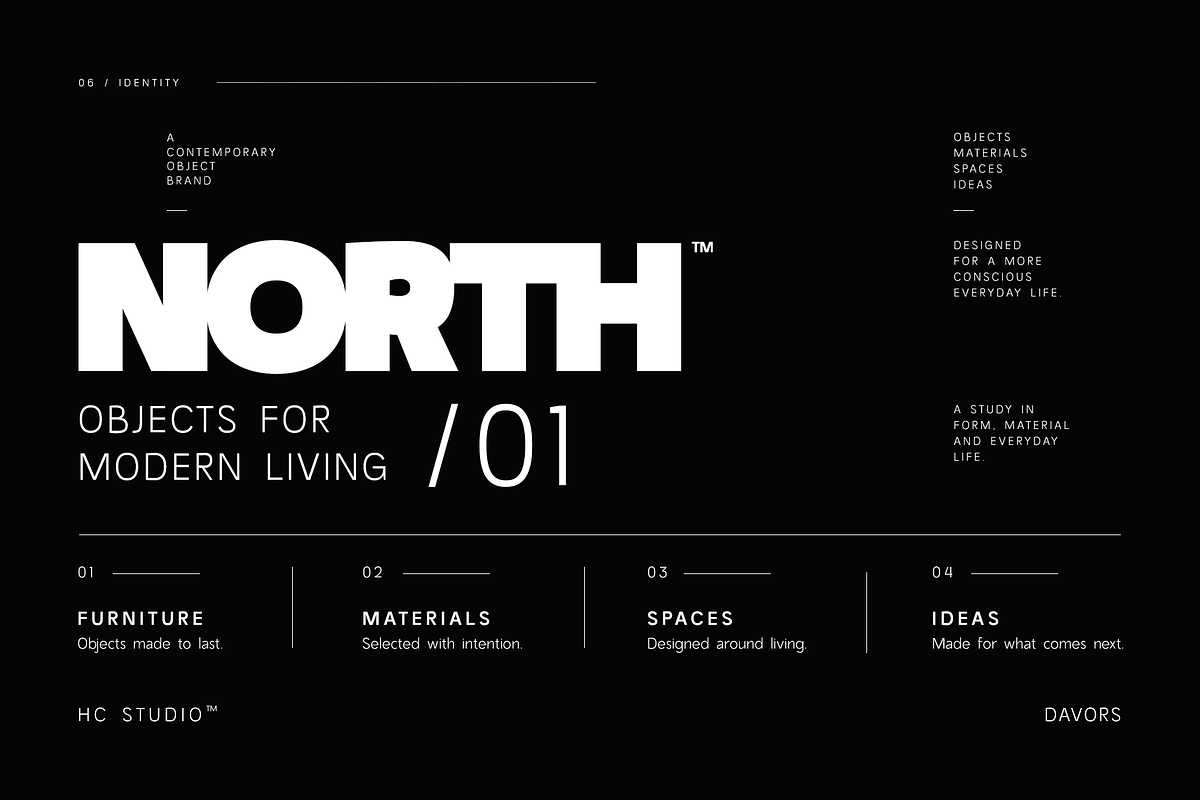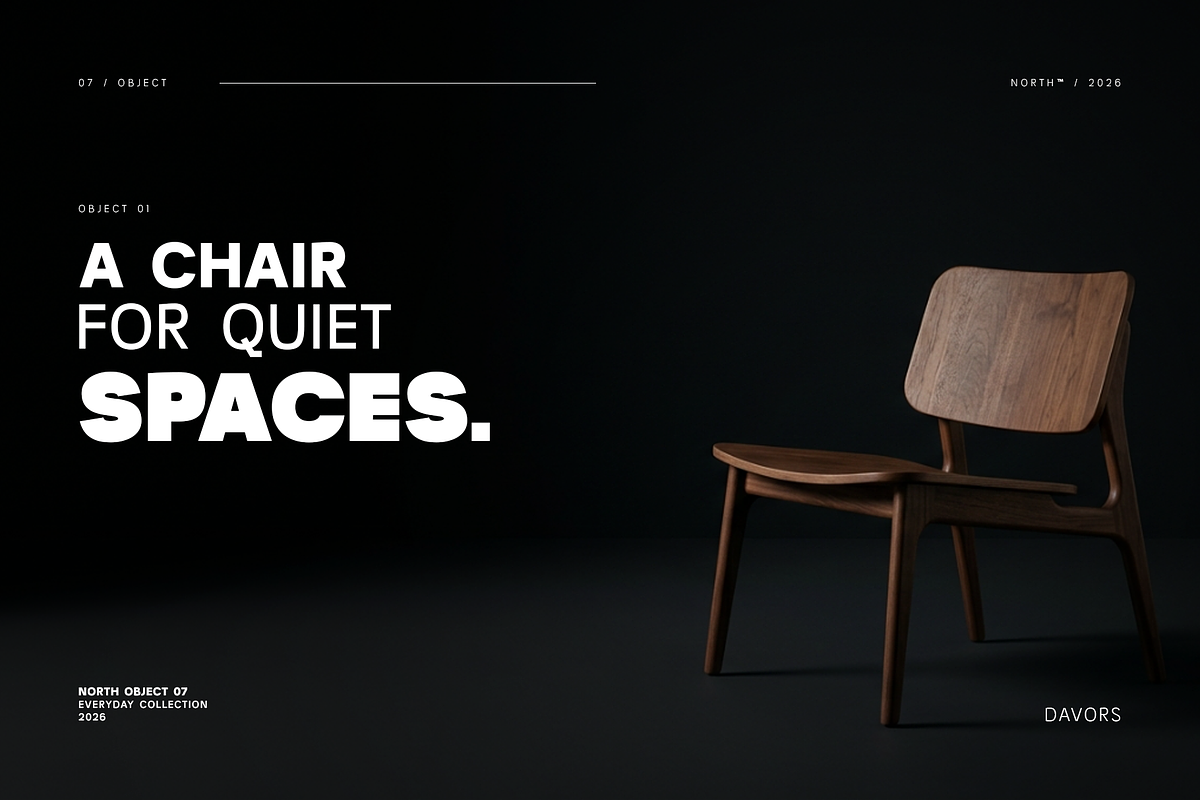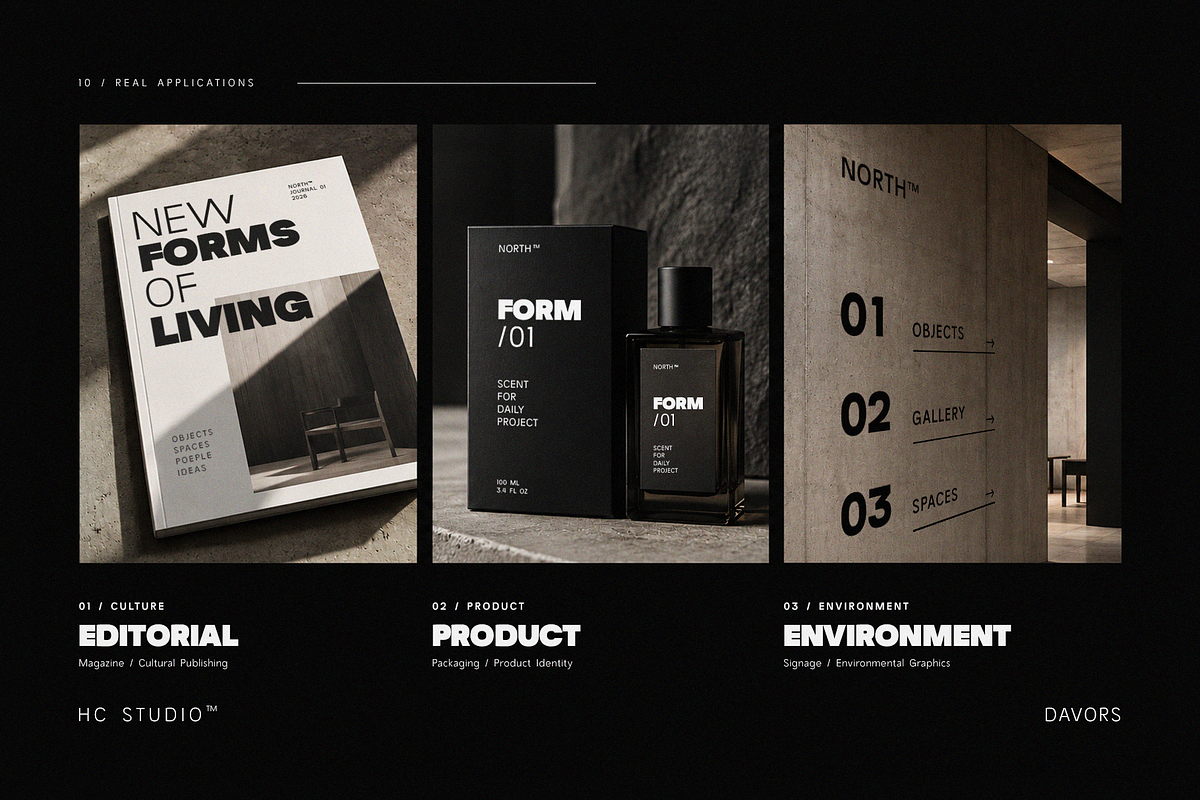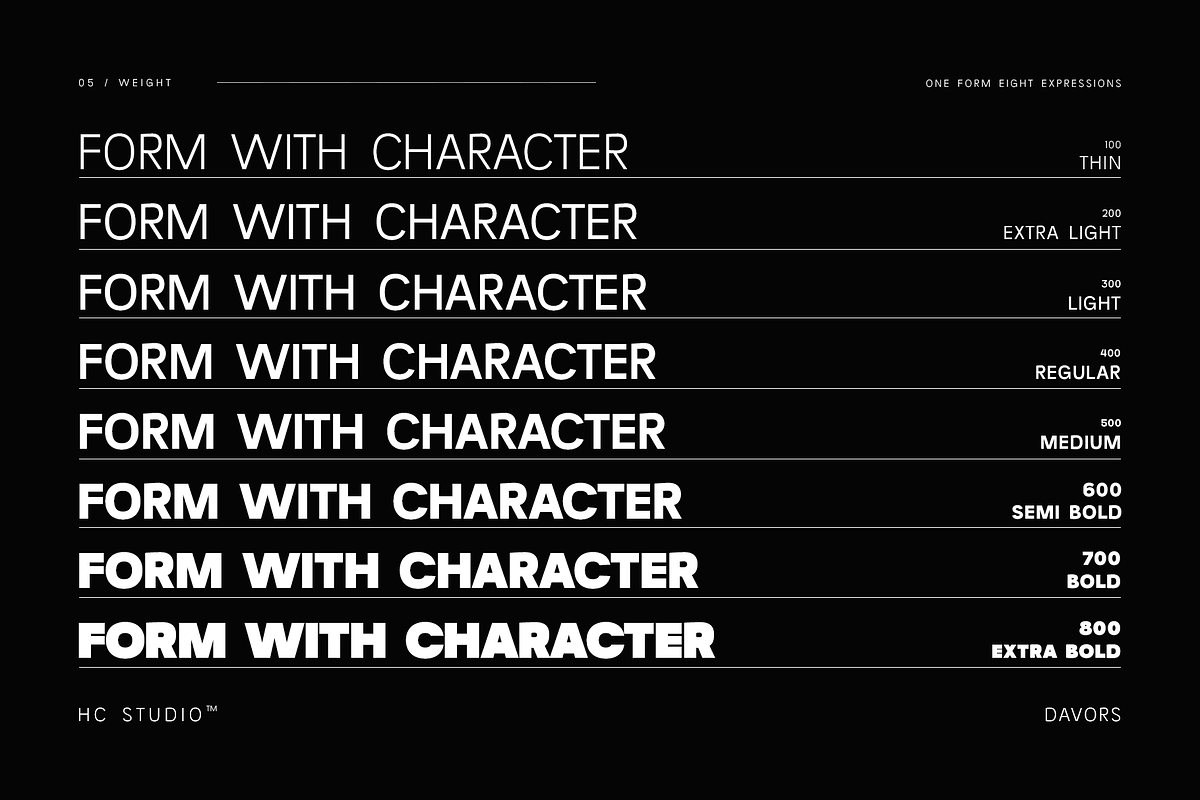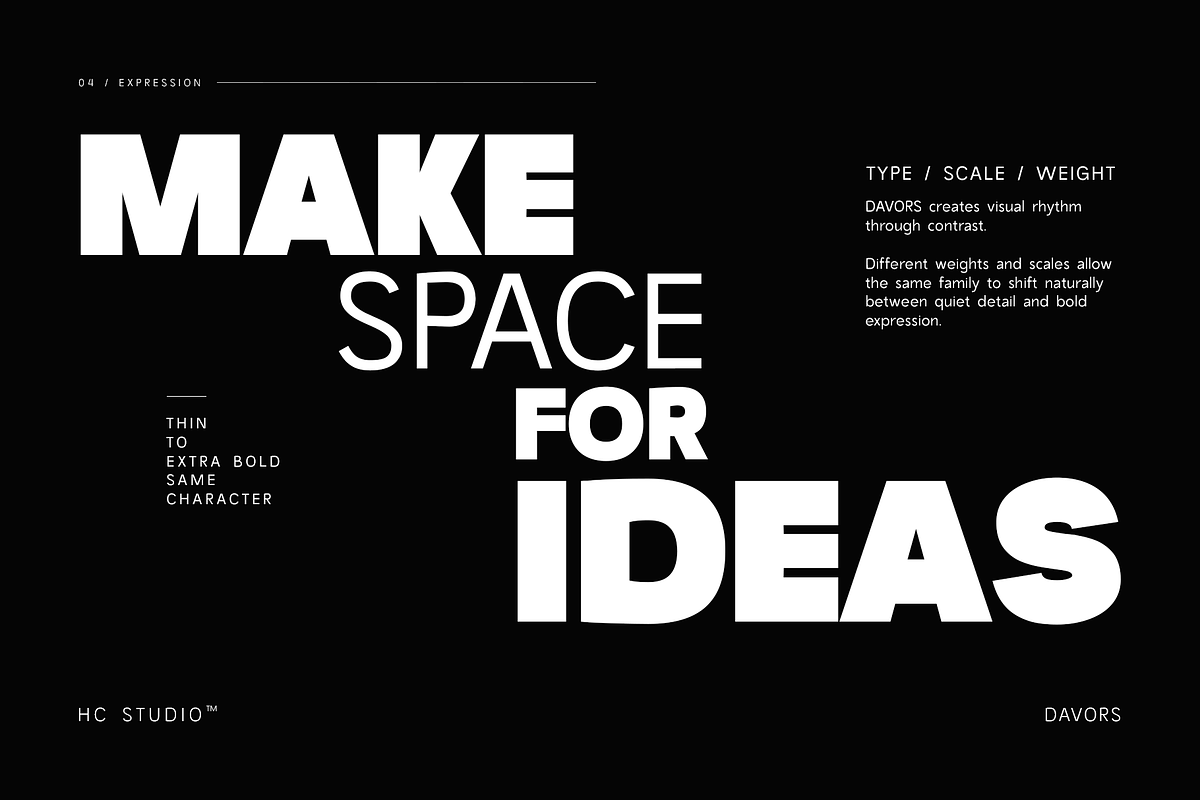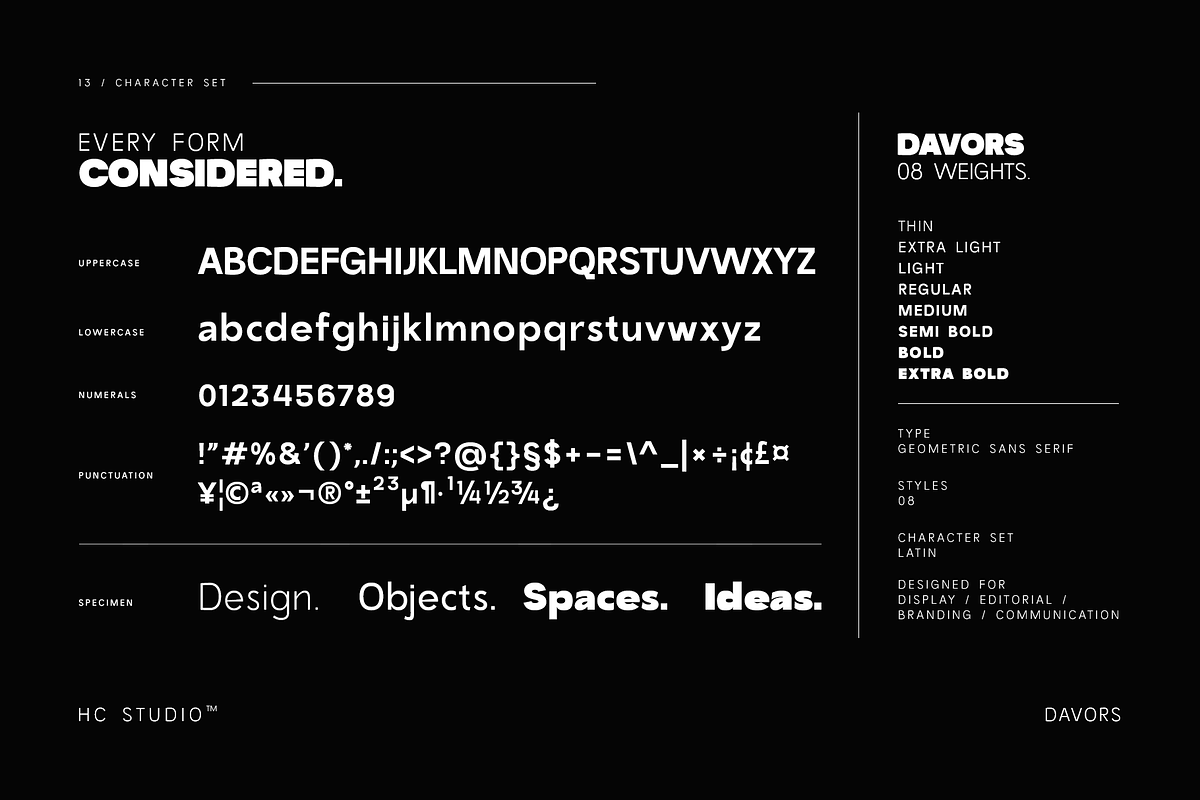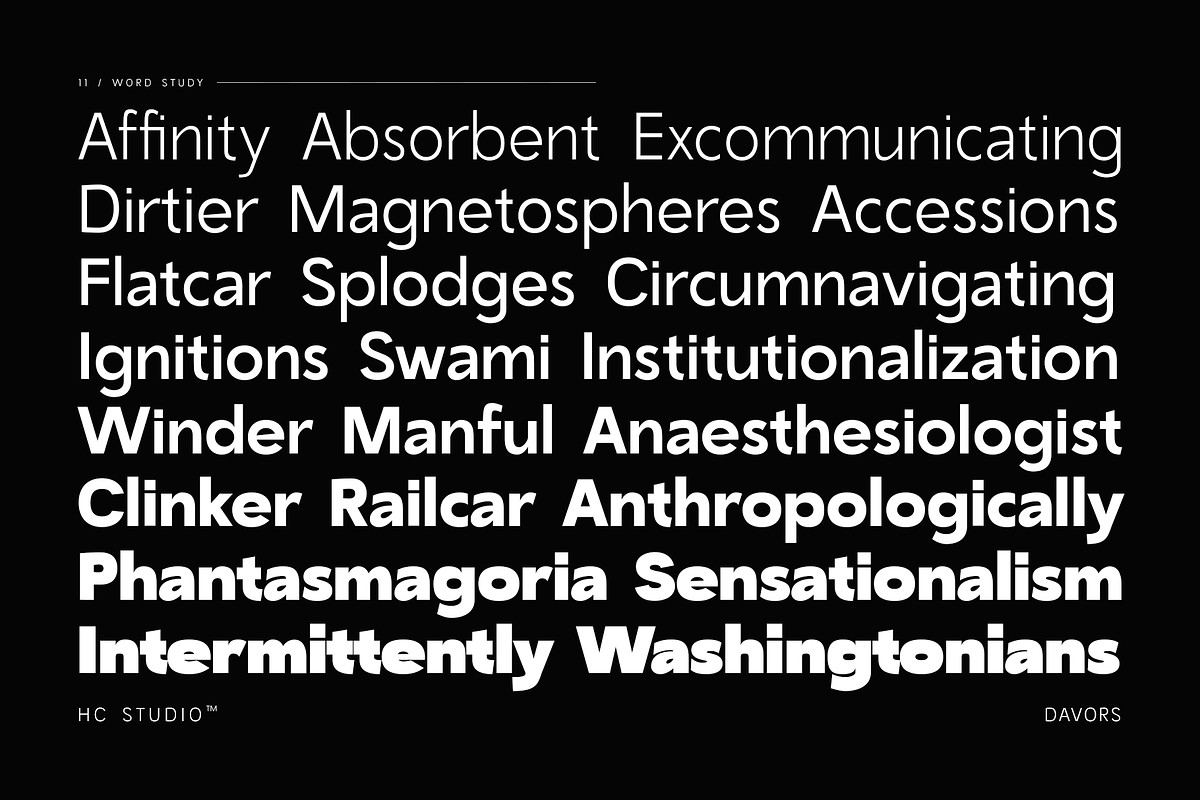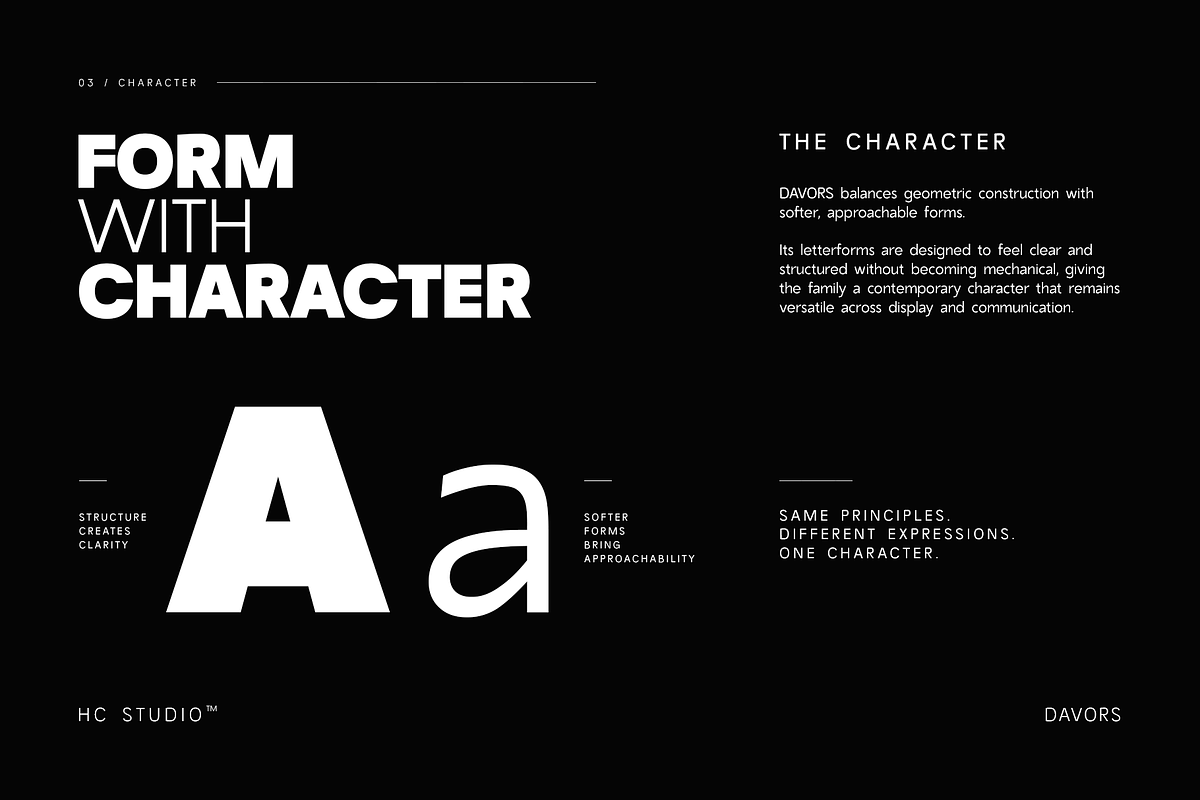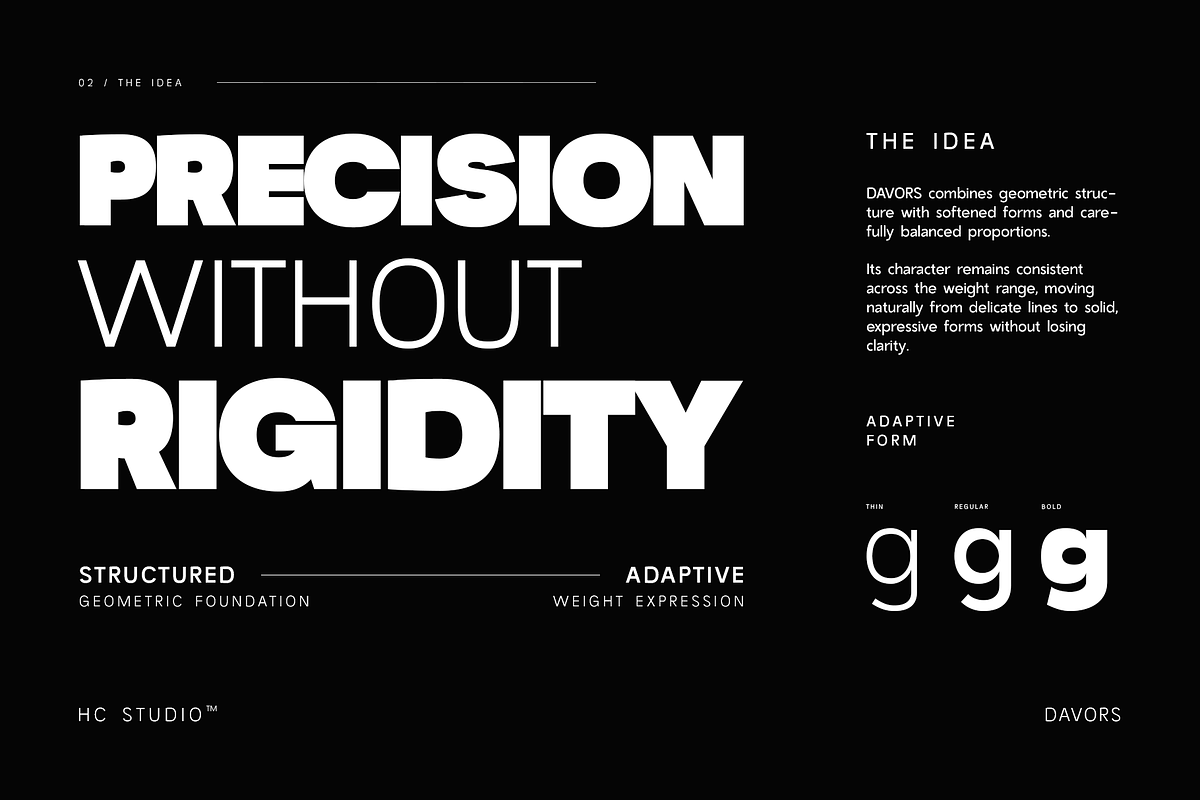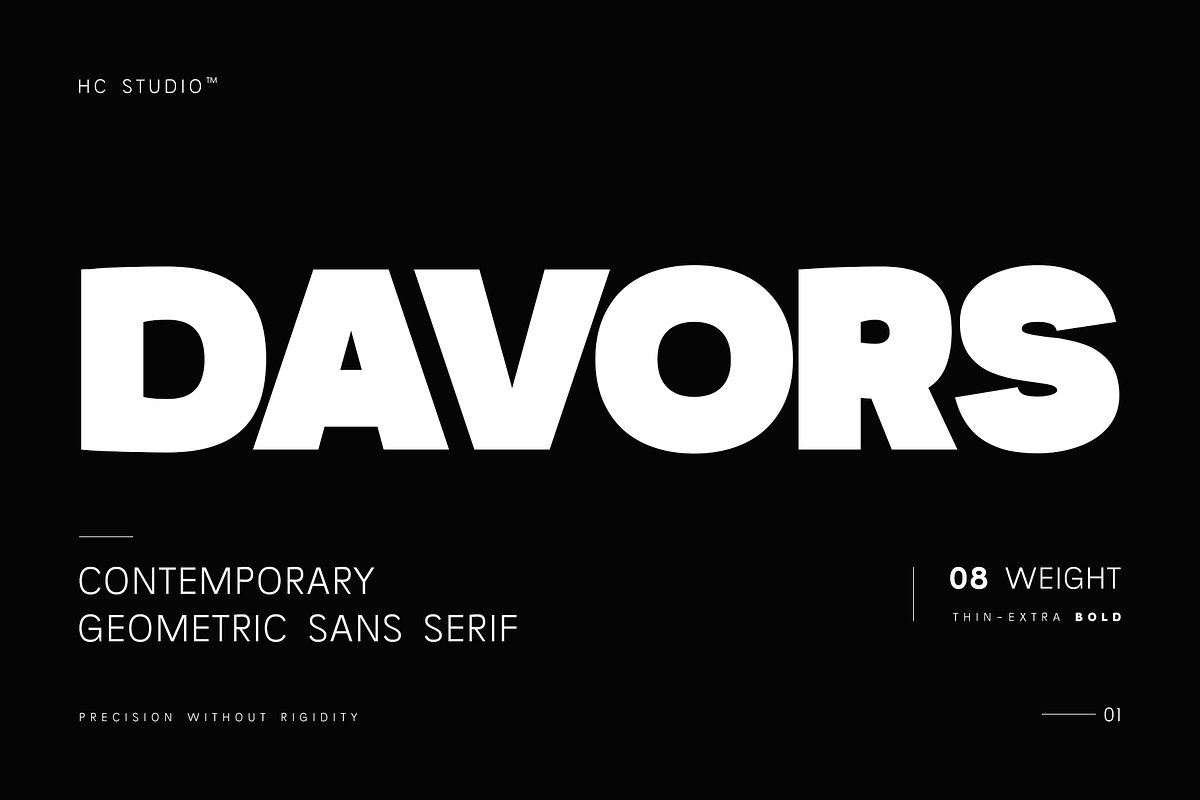
Davors - Geometric Sans Serif
DAVORS is a modern geometric sans serif font family with 8 weights, designed for branding, logo design, editorial design, packaging, posters, fashion, digital design, and contemporary visual identities.
Built around the idea of precision without rigidity, DAVORS combines geometric structure with softened forms and balanced proportions. The result is a clean, contemporary sans serif with a distinctive character that moves naturally from subtle typography to bold display compositions.
8 WEIGHTS
- Thin
- Extra Light
- Light
- Medium
- Semi Bold
- Bold
- Extra Bold
The complete weight range gives you a flexible typographic system for creating contrast, hierarchy, rhythm, and expressive layouts while maintaining a consistent visual identity.
DESIGNED FOR
• Brand Identity
• Logo Design
• Editorial Design
• Magazine Layouts
• Fashion Branding
• Packaging Design
• Posters
• Advertising & Campaigns
• Digital Design
• Web Design
• Social Media Graphics
• Product & Lifestyle Branding
• Architecture & Interior Branding
• Art Direction
MODERN GEOMETRIC CHARACTER
DAVORS combines geometric construction with softened, approachable forms.
Its proportions are structured and contemporary without feeling overly mechanical, creating a balance between precision and personality.
Use lighter weights for refined editorial typography and subtle branding, or move into the heavier weights for headlines, posters, campaigns, packaging, and strong visual identities.
LATIN EXTENDED
DAVORS includes an extended Latin character set with support for 66 languages, making it suitable for multilingual branding, editorial projects, packaging, campaigns, and international visual communication.
The character set includes extended Latin characters, numerals, punctuation, symbols, and fi / fl ligatures.
BRANDING & DISPLAY TYPOGRAPHY
DAVORS is particularly effective when typography needs to become an active part of the visual identity.
Use it for:
LOGOS · BRANDING · HEADLINES · POSTERS · PACKAGING · EDITORIAL · FASHION · CAMPAIGNS · DIGITAL DESIGN · ADVERTISING
Its eight weights allow you to create complete typographic hierarchies while keeping the same recognizable character throughout the design.
DAVORS
Modern Geometric Sans Serif
8 Weights — Thin to Extra Bold
Latin Extended — 66 Languages
Precision Without Rigidity.